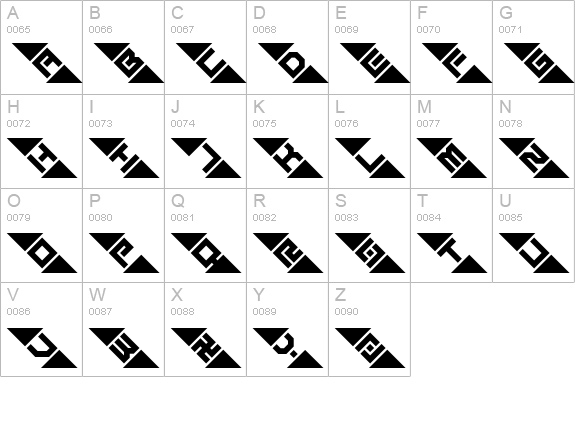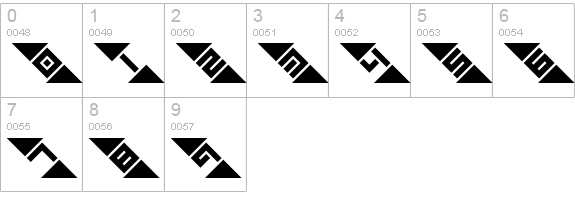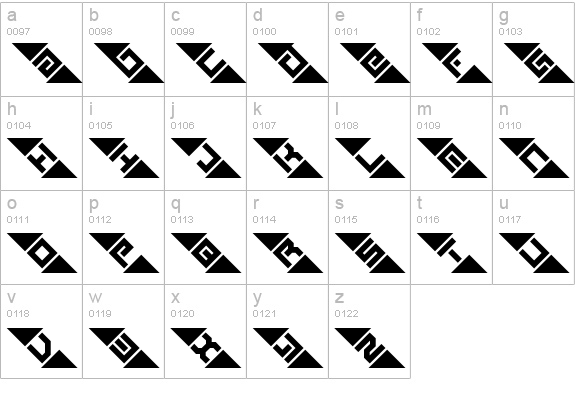
Introducing Graze BRK font, a sleek and modern typeface that is perfect for a wide range of design projects. With its unique blend of elegance and readability, Graze BRK font adds a touch of sophistication to any text or graphic. This versatile font is ideal for logos, branding, posters, websites, and more. What sets Graze BRK font apart is its seamless combination of contemporary design elements with classic typography principles. The result is a font that is both timeless and on-trend, making it a must-have for designers looking to make a statement. And the best part? Graze BRK font is completely free to download at FontsMarket.com. So you can add this stunning font to your collection without breaking the bank. Don't miss out on the opportunity to elevate your designs with Graze BRK font today!